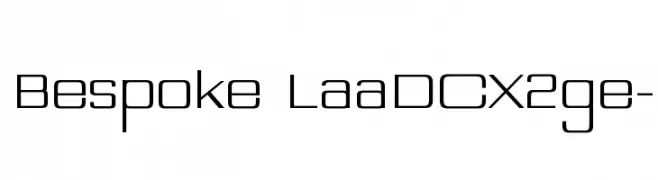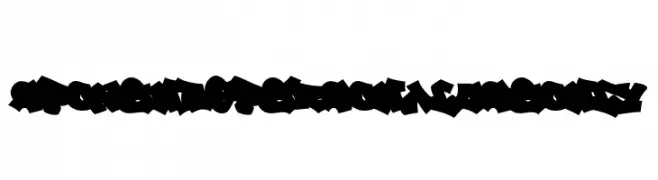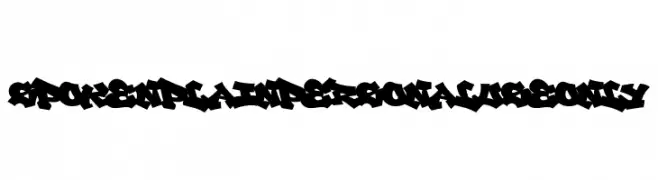
( TheLouster115 )
A pixelated, retro font inspired by classic video games.
( TheLouster115 )
A pixelated, retro-style font inspired by classic video game graphics.
( London's Letters - www.londonsletters.com/ )
A bold, angular font with a playful, retro video game style.
( Omnicoda - www.omnicoda.com/ )
A modern, geometric font with clean lines and a minimalist style.
( SnailFonts - whatknot.tripod.com/snailfont/index2.html )
A playful, handwritten font with a casual and dynamic style.
A bold, decorative font with card suit symbols and a double-line effect.
A bold, graffiti-inspired font with dynamic, angular strokes.
A bold, graffiti-inspired font with thick, blocky letters and a dynamic, edgy appearance.
A bold, graffiti-inspired font with a dynamic, urban aesthetic.
A bold, decorative font with a vintage flair and subtle serifs.